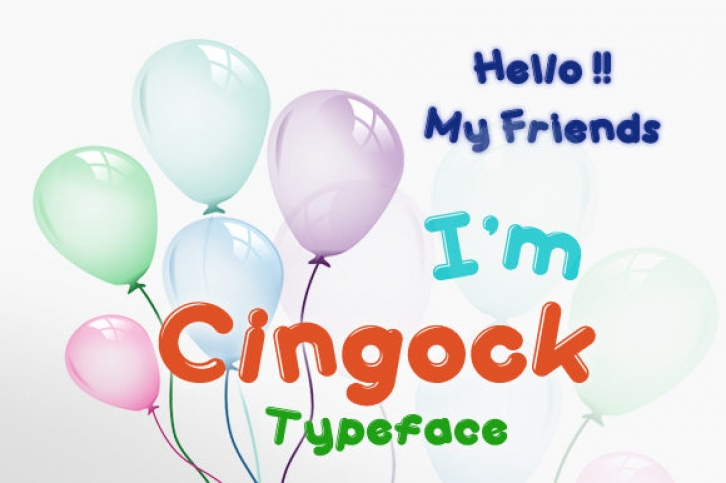
The Cingock is a modern typeface family with closed forms. It has a fun feel which will give your designs a playful look.
Mix and match the styles to create amazing typography.